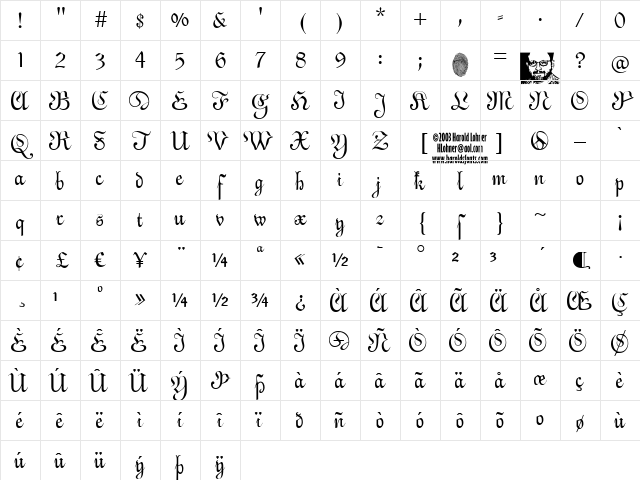
AlsaceLorraine Regular Free Font
AlsaceLorraine Regular
Design Context for AlsaceLorraine
AlsaceLorraine is a composed and adaptable typeface that performs quietly and consistently across a wide range of design contexts.